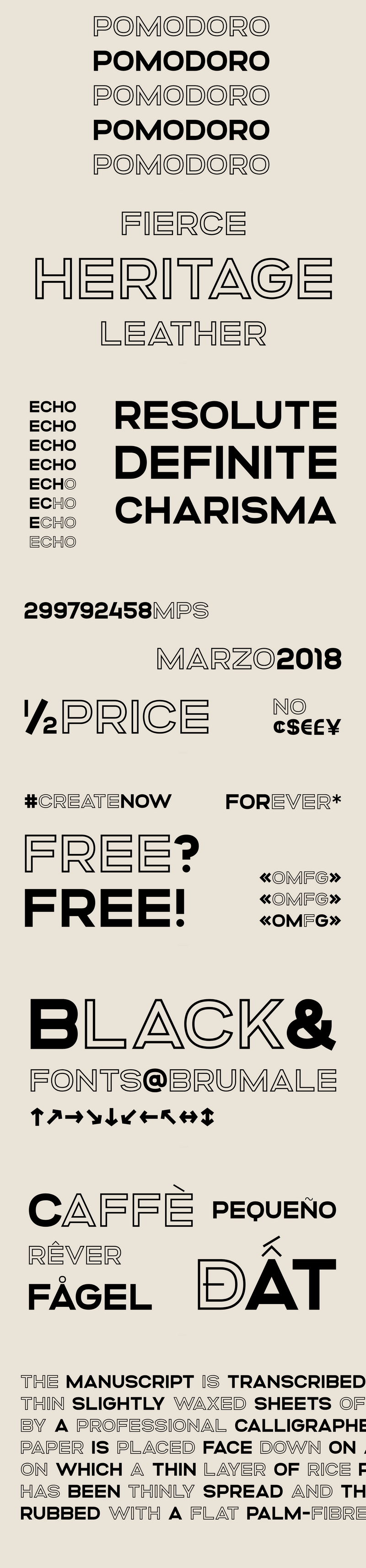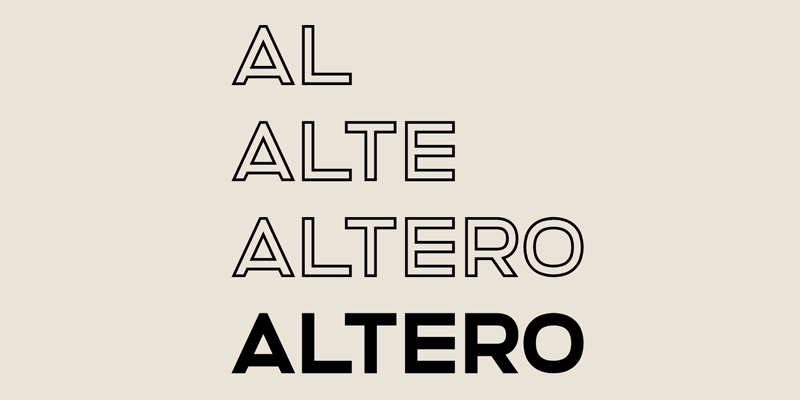
Altero: Large Outline Typeface (OTF)
Altero is a font with a bold look, perfect for designing headlines, banners, ads, posters and more. It comes in two styles (Regular and Outlined) and contains 505 glyphs, including uppercase letters, numerals, and symbols with support for 91 languages. Designed and released by Stefano Giliberti, free for both personal and commercial projects.